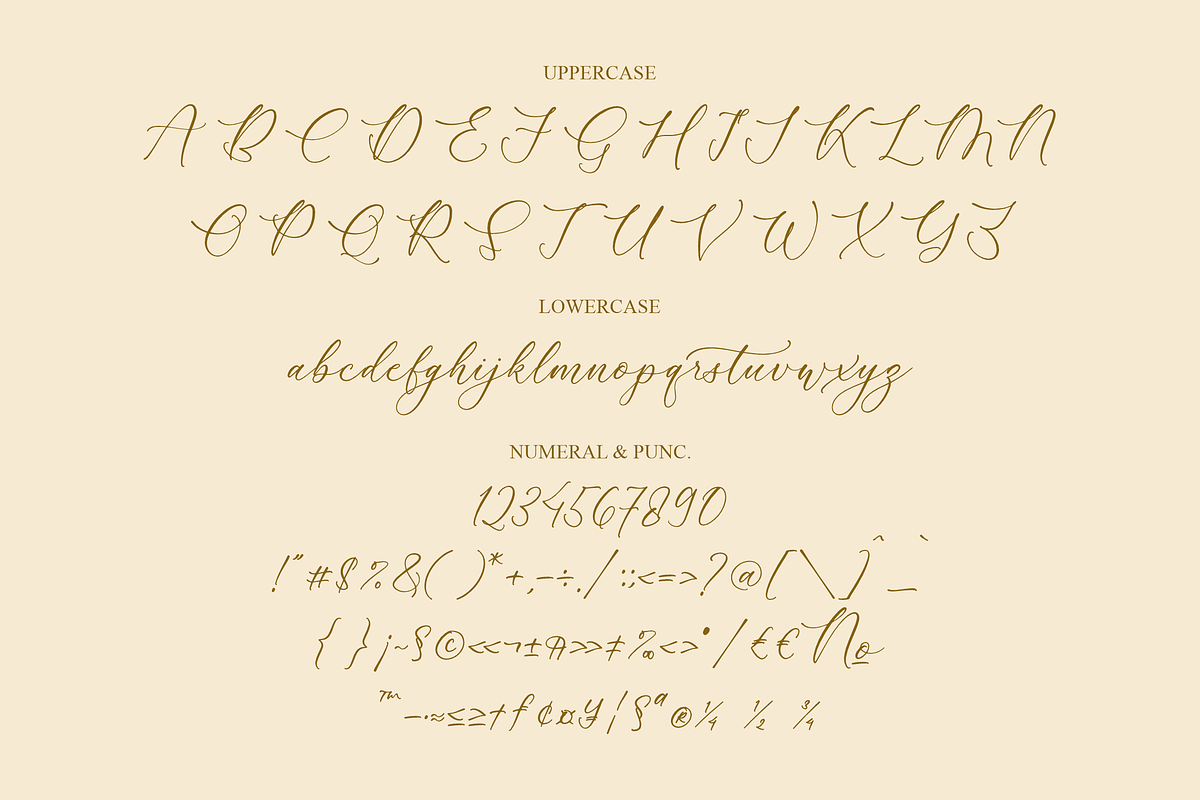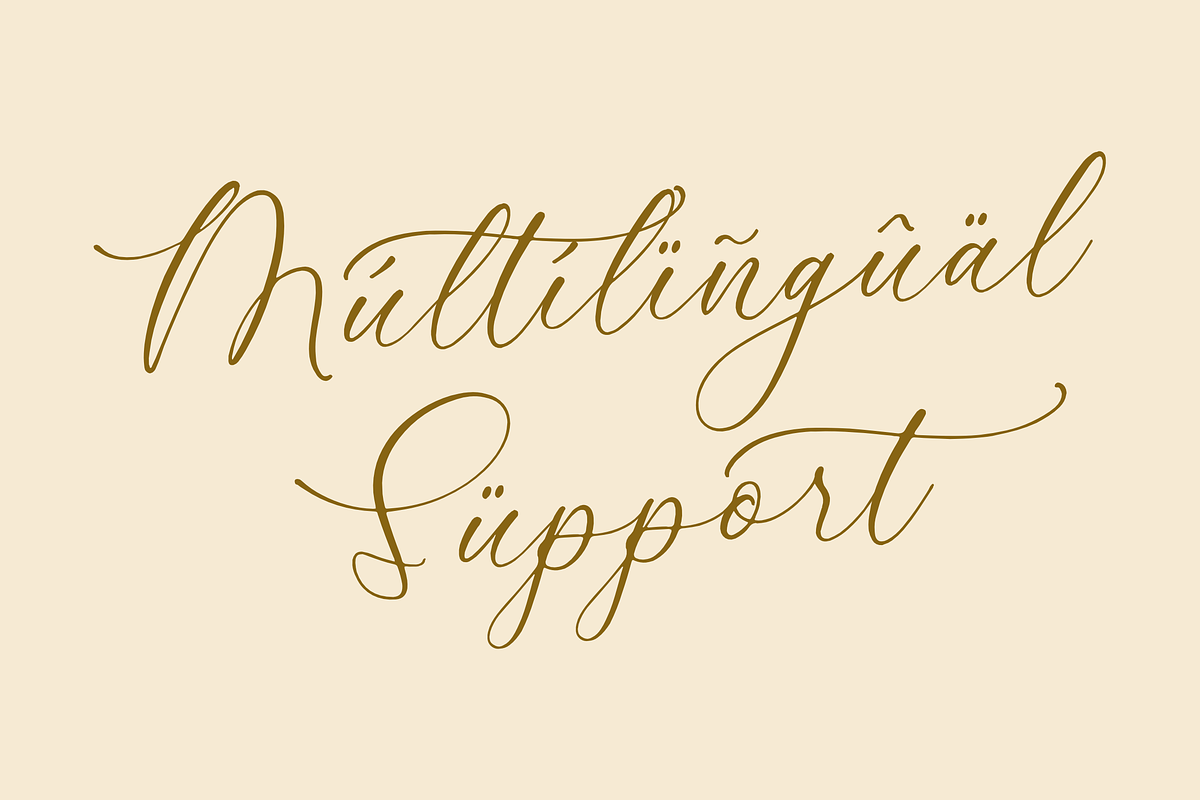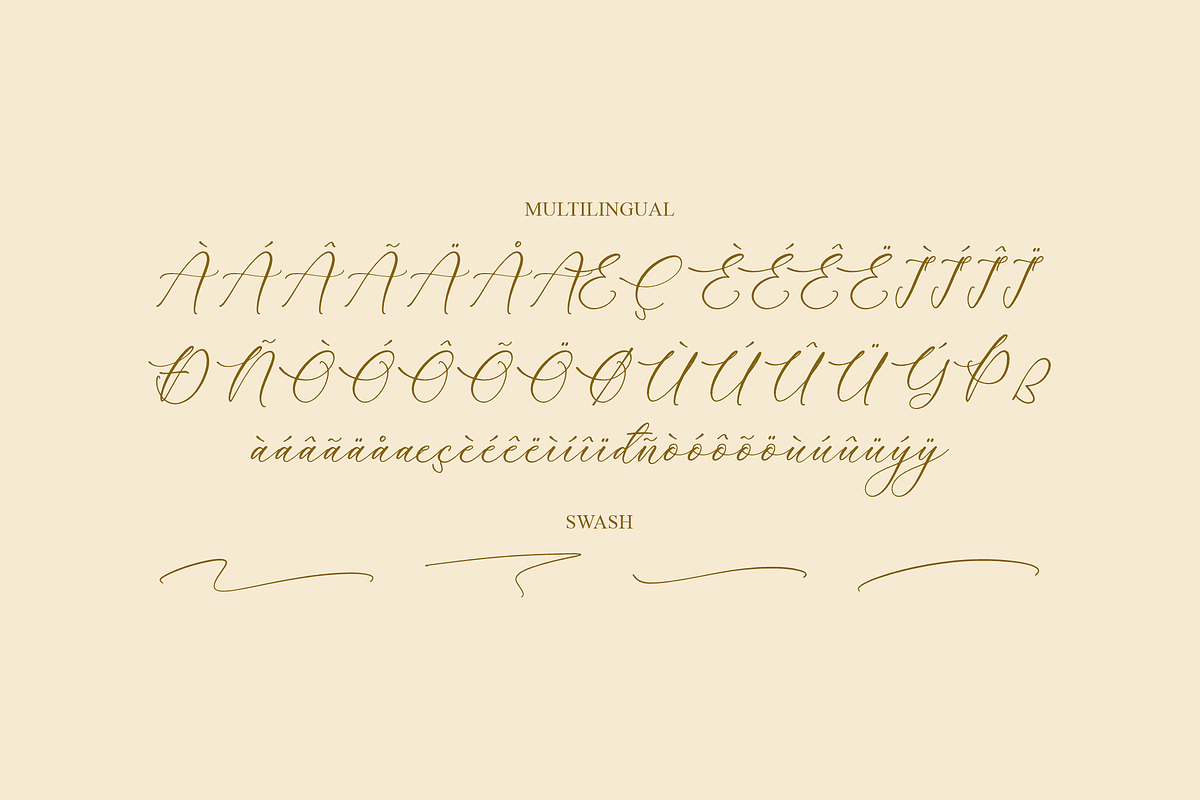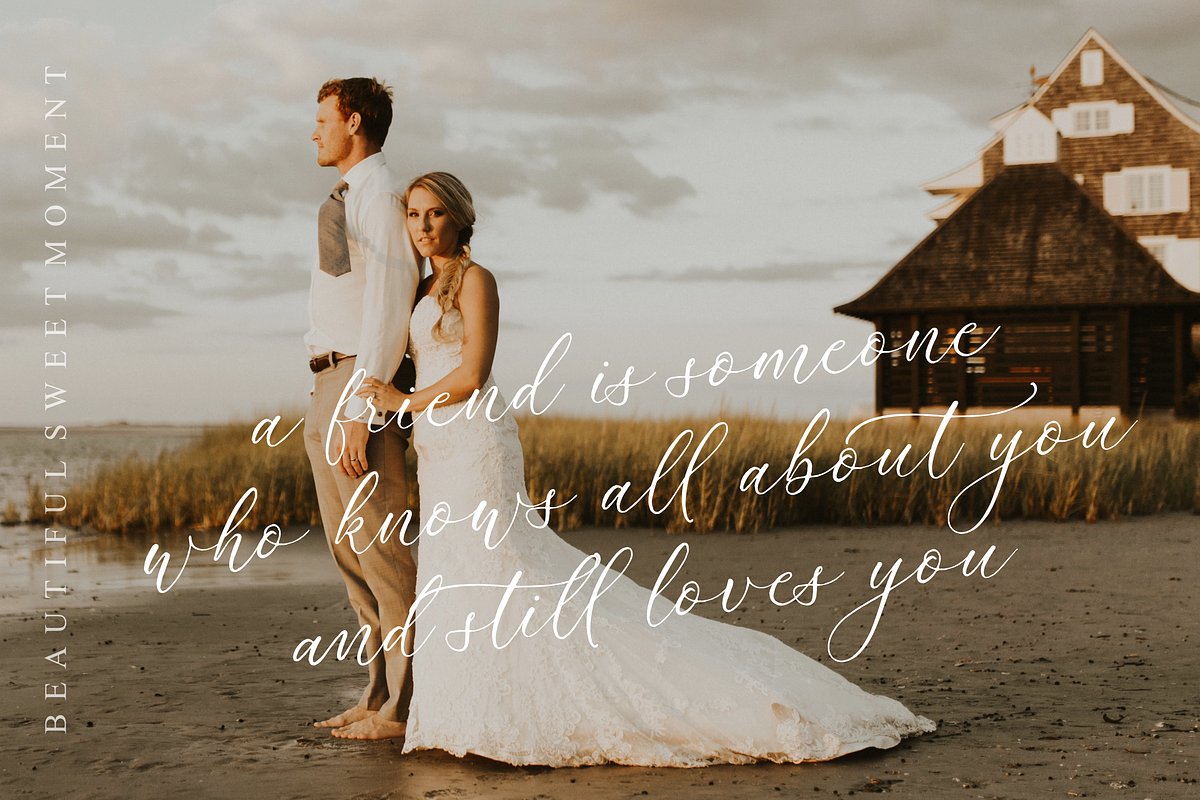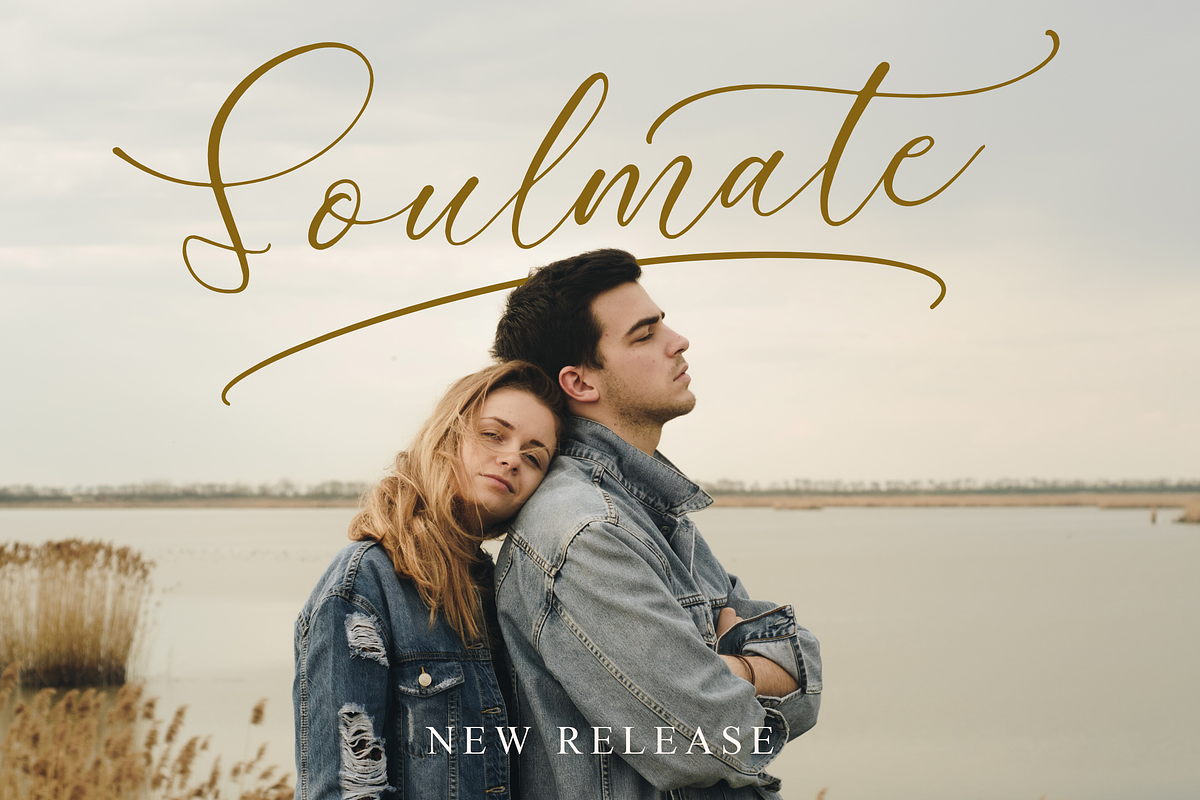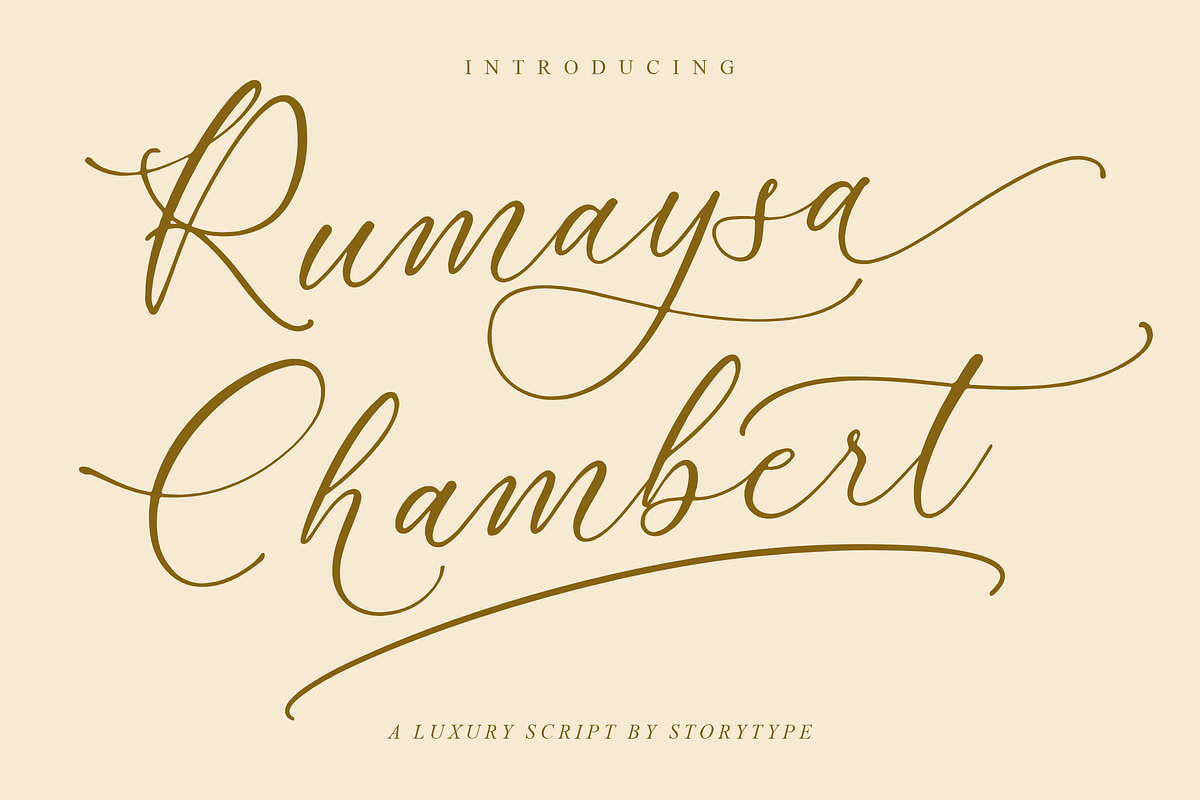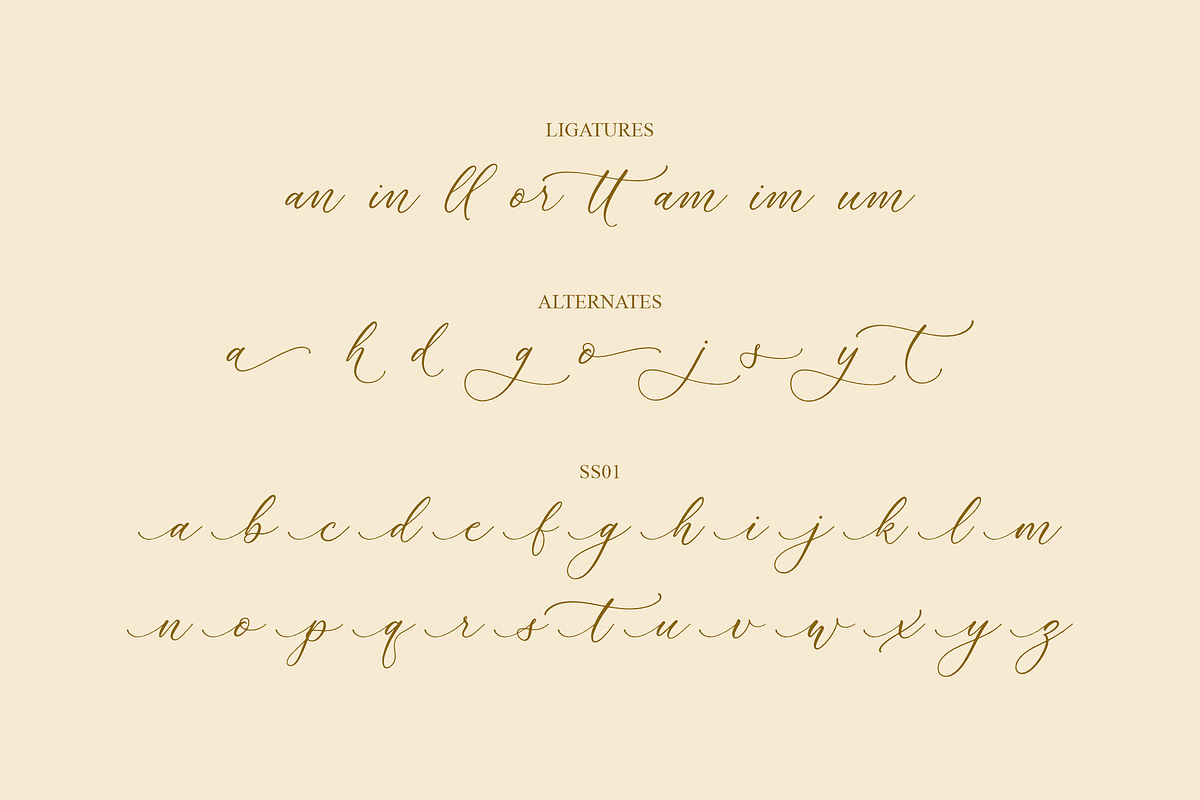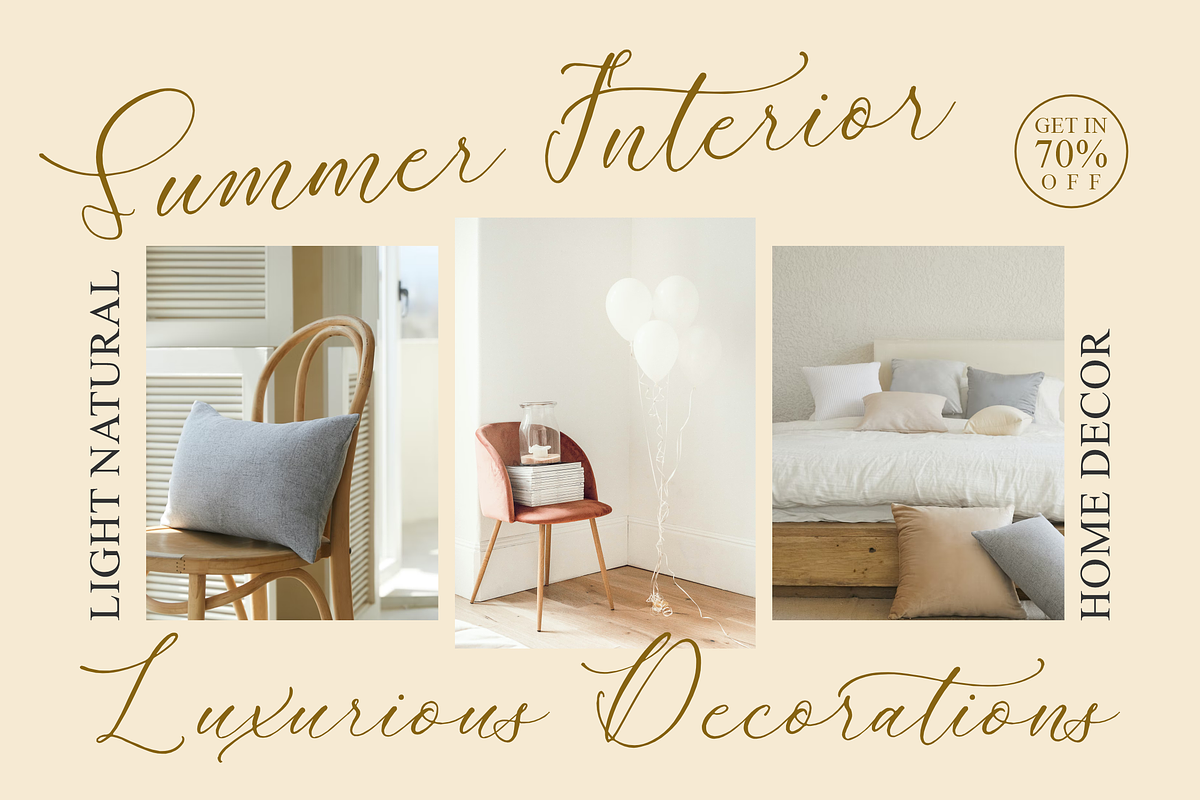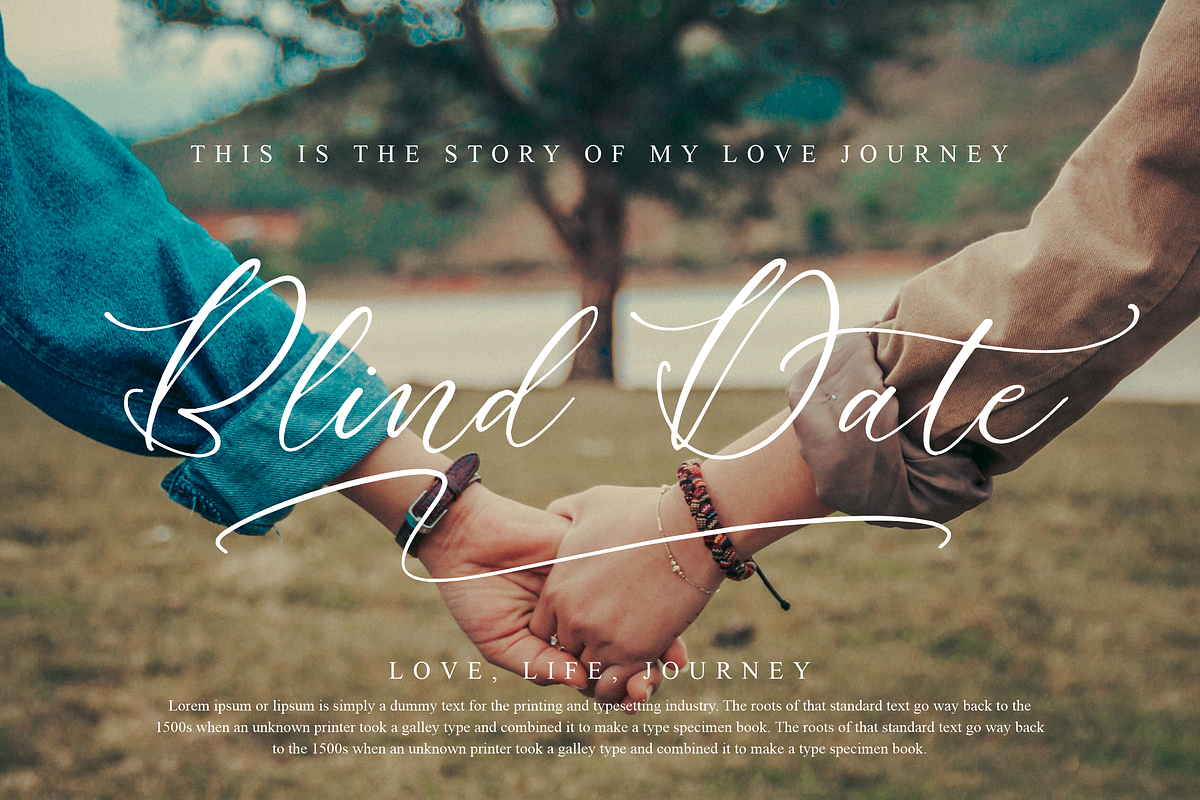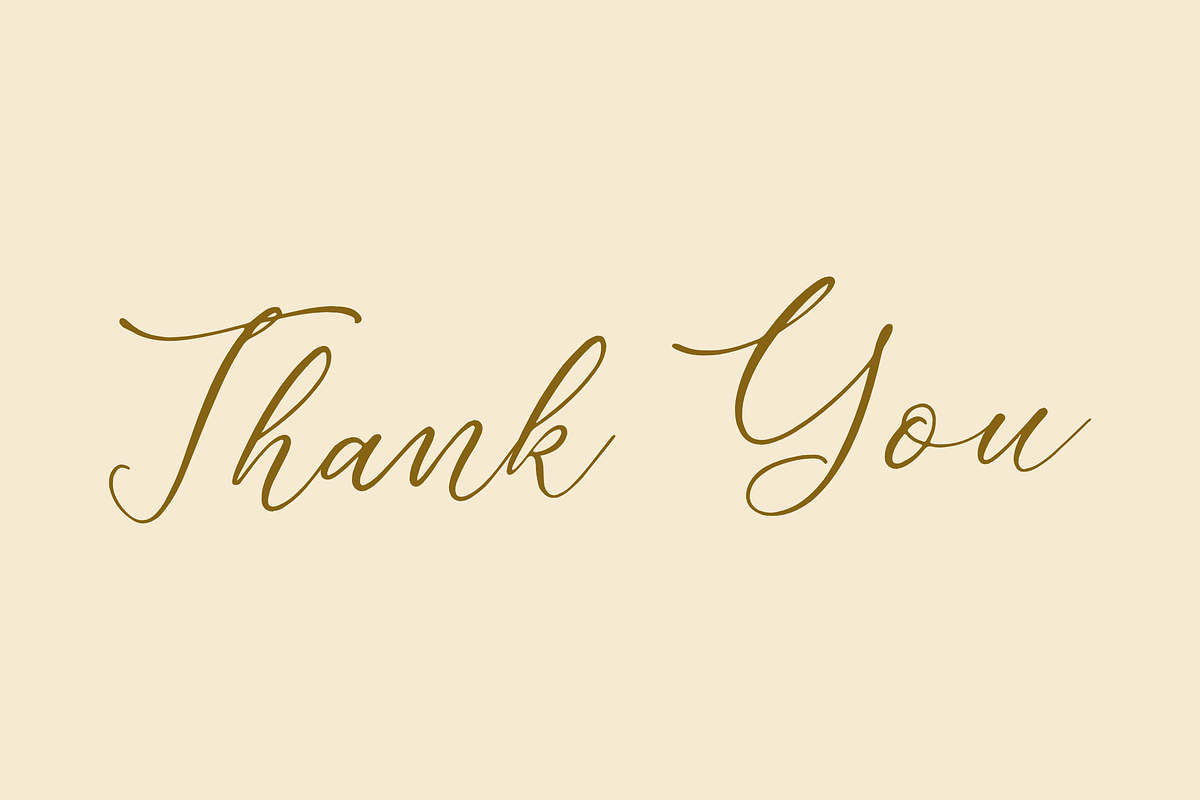
Rumaysa Chambert Luxury Script
Proudly present Rumaysa Chambert Luxury Script , created by Storytype, A luxury script that has own unique style & modern look. This typeface is perfect for an elegant & luxury logo, book or movie title design, fashion brand, magazine, clothes, lettering, quotes, and so much more.